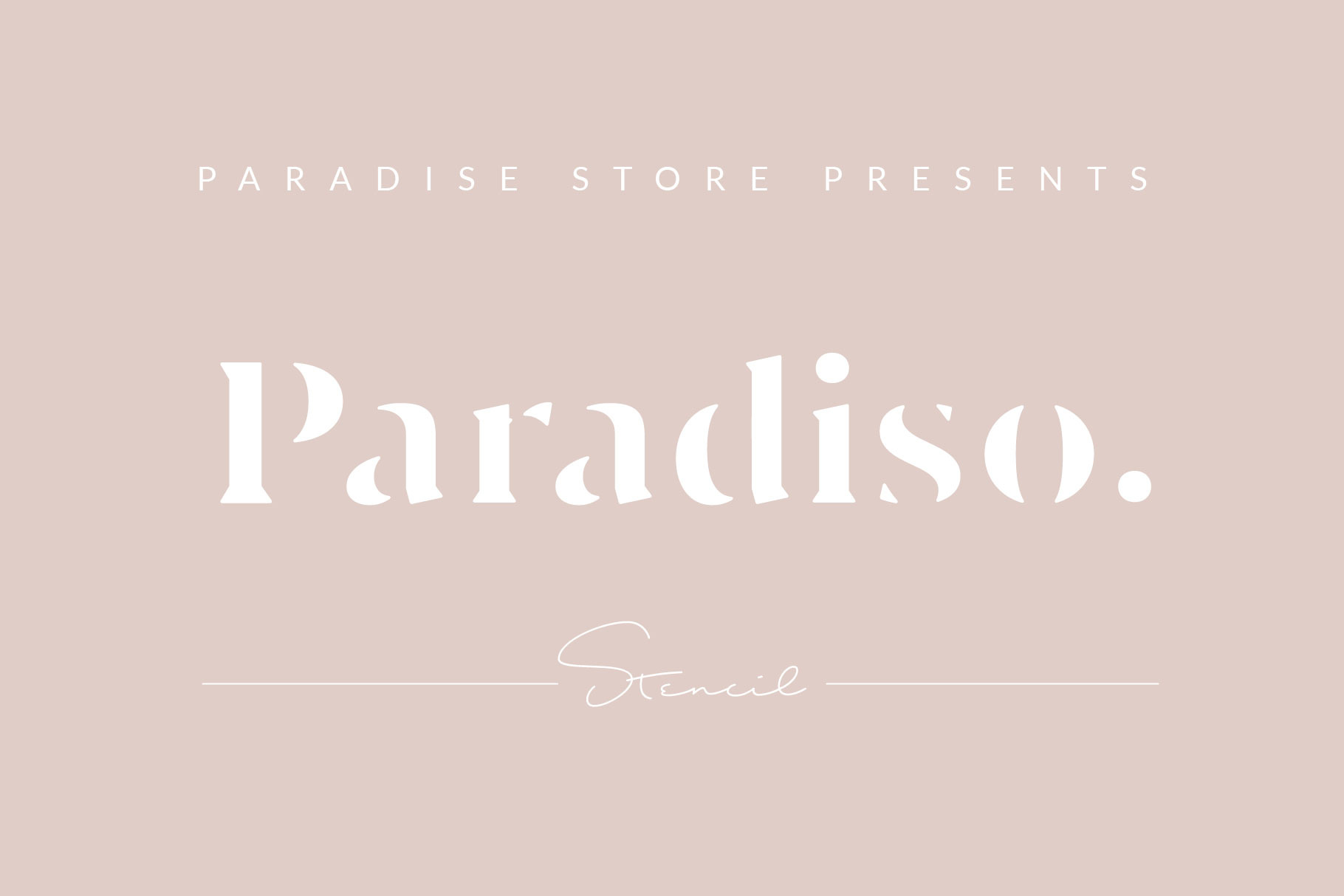
Paradiso Stencil font
A feminine fashion stencil font, great for mastheads or logos. It's minimal but bold, Classic and Modern! Looks good as monograms and pull quotes.
- Capitals, Lowercase, Numbers and punctuation
- bold, yet soft curves